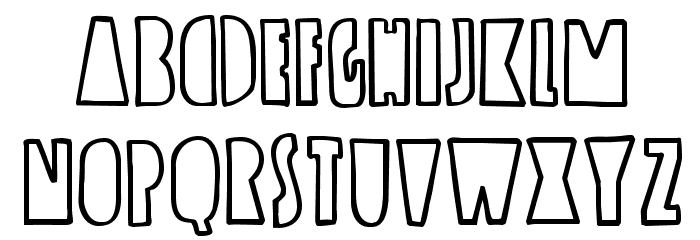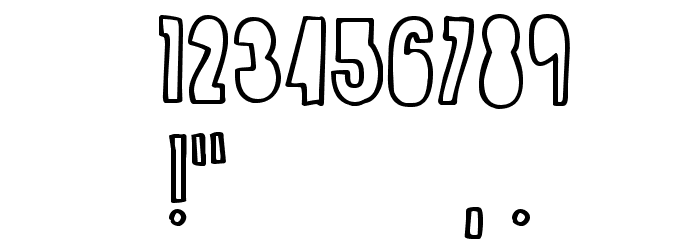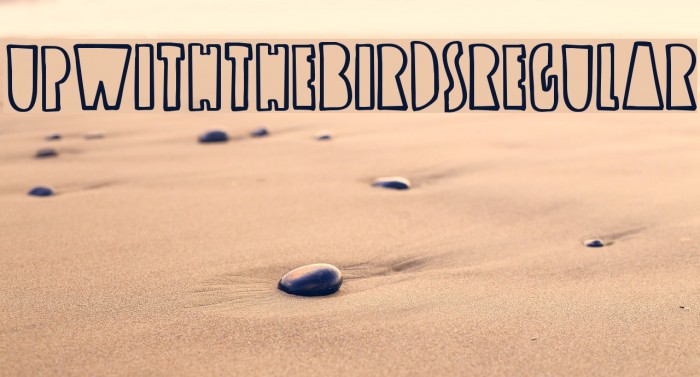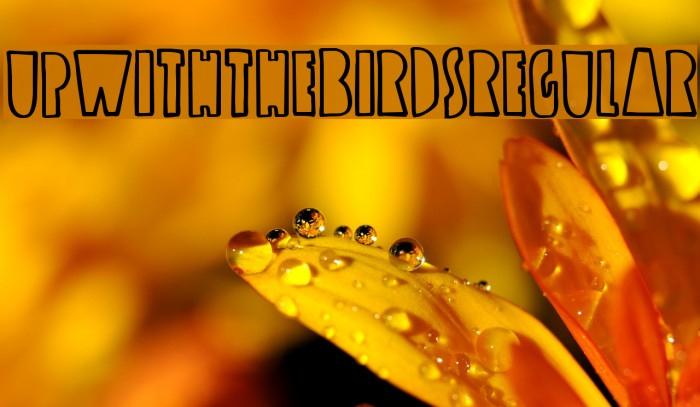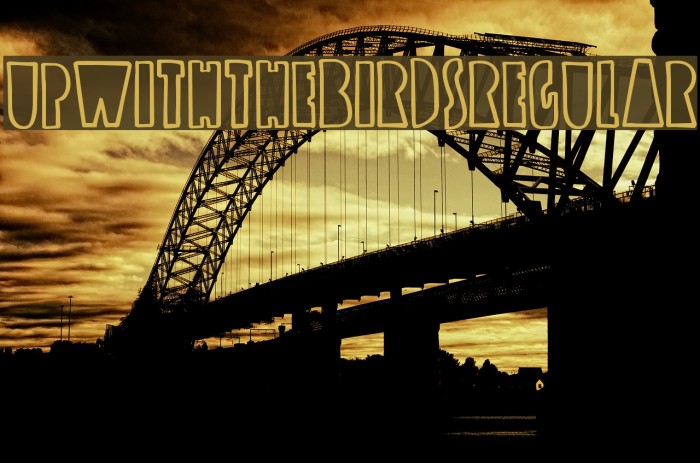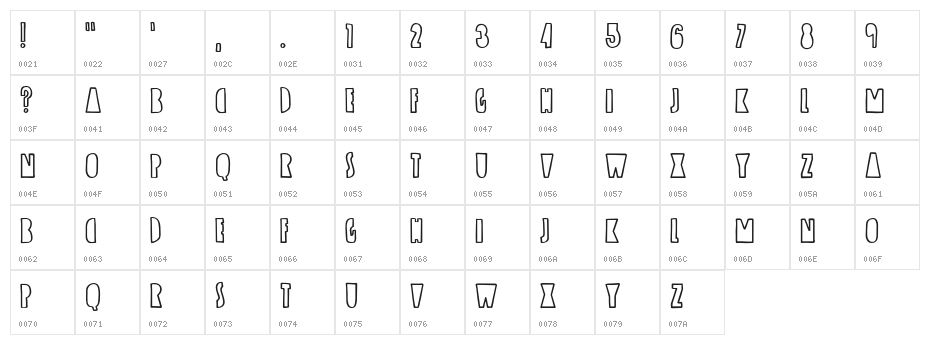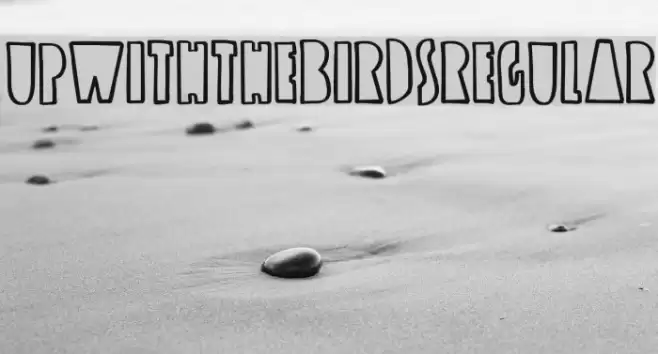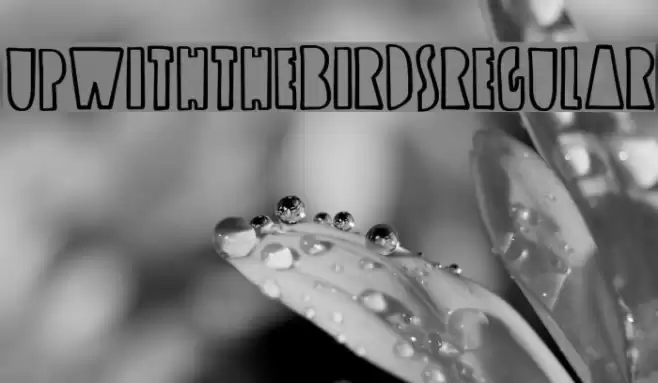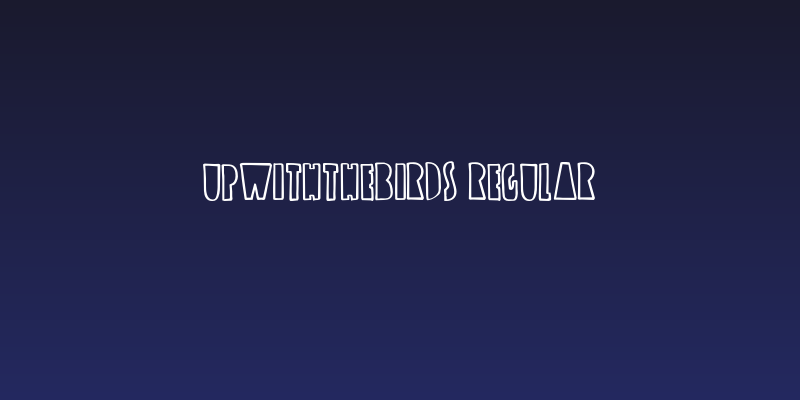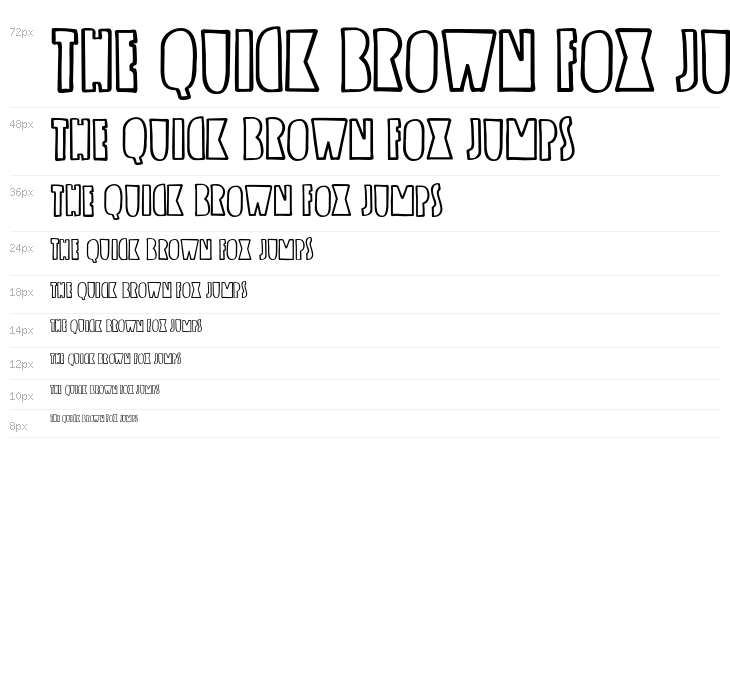
UpwiththeBirds-Regular Font
This font features a playful and whimsical design, characterized by its bold, hand-drawn appearance. Each letter is outlined with a thick, uneven stroke, giving it a casual and informal look. The characters have a slightly irregular shape, adding to the font's charm and uniqueness. The uppercase and lowercase letters maintain a consistent style, with rounded edges and a sense of movement. Numbers and special characters follow the same design principles, ensuring a cohesive appearance across all glyphs. This font is ideal for projects that require a fun and engaging aesthetic.
A playful, hand-drawn font with bold, outlined characters.
- Proposed Projects: Ideal for children's books, playful branding, posters, and creative invitations.
- Overall Style: Playful